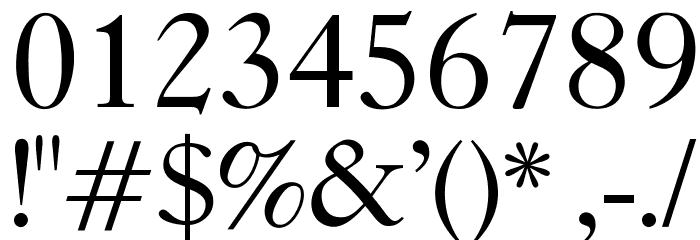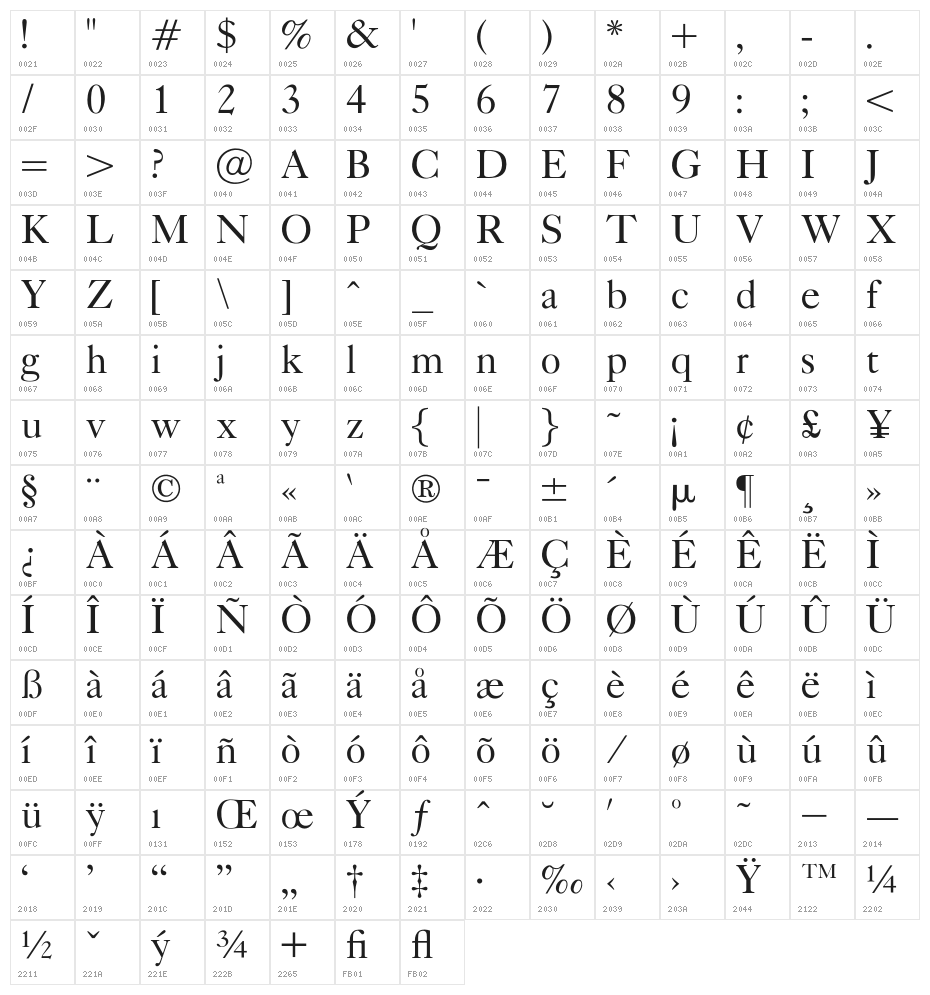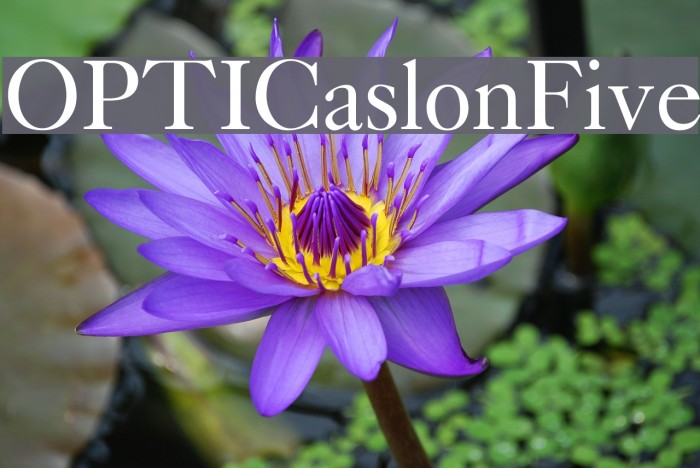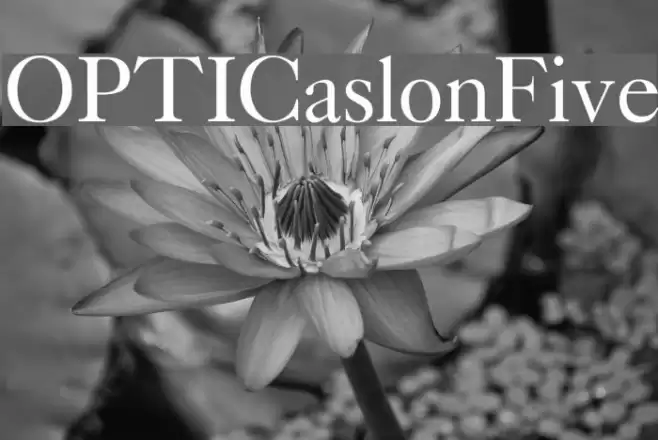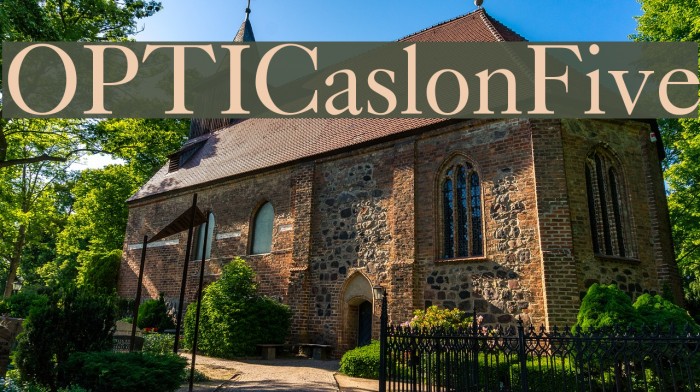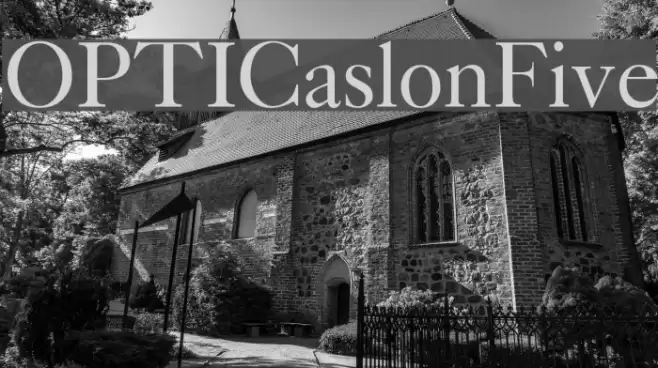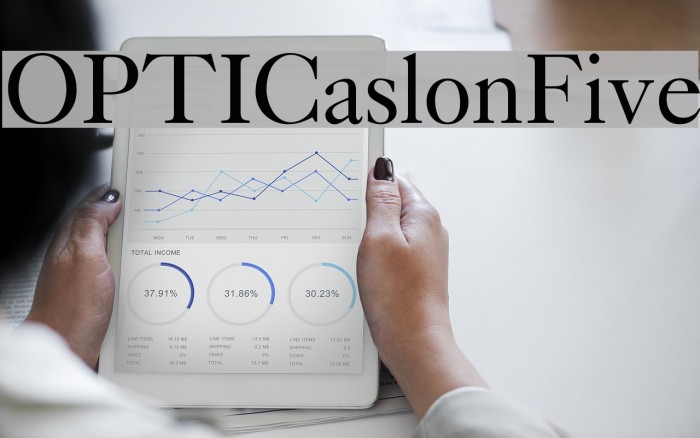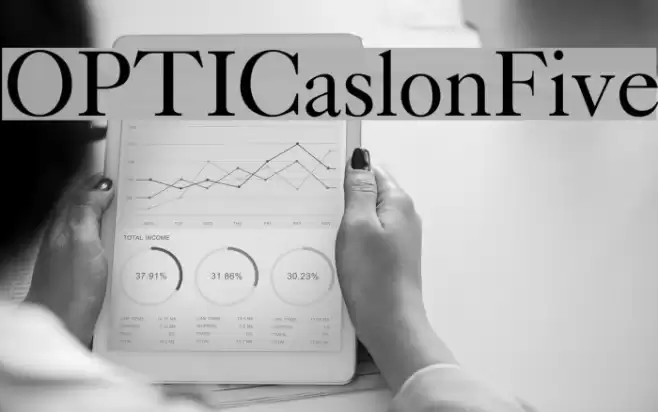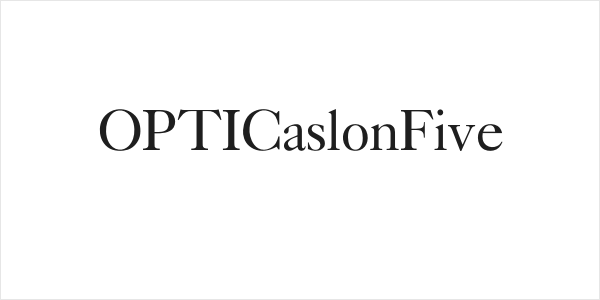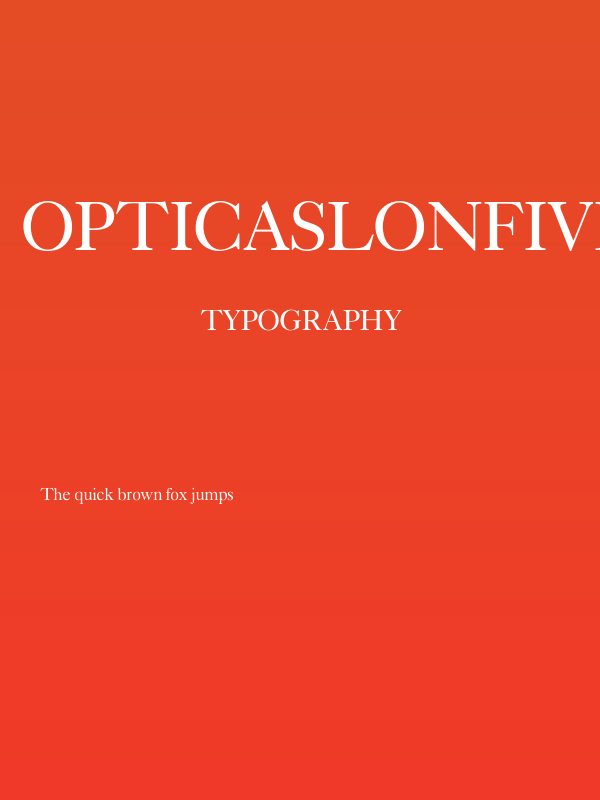
OPTICaslonFive Font
OPTICaslonFive Description
This font exudes a classic elegance with its refined serif style, characterized by sharp, clean lines and a balanced proportion. The uppercase letters stand tall with a slight contrast in stroke thickness, giving them a dignified presence. The lowercase letters maintain a harmonious flow, with gentle curves and a consistent baseline. Numbers are clear and legible, making them suitable for both formal and casual contexts. Special characters are thoughtfully designed, ensuring versatility across various applications. The overall aesthetic is timeless, making it ideal for projects that require a touch of sophistication.
| Proposed Projects | Ideal for book covers, editorial design, branding, and formal invitations. |